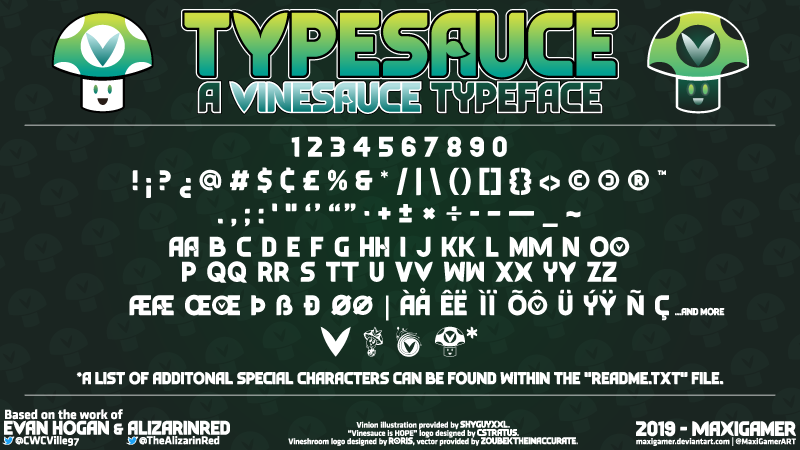
"Typesauce" is a typeface based on an original logo design by Evan Hogan|@CWCVille97, made for Vinesauce, a Twitch.TV streaming group. Please read the "readme.txt" file, enclosed within the provided .zip, for further information about this font, its license and additional credits. A list of uppercase variants + additional special characters can also found within the "readme.txt" file, as well as a list of supported Unicode blocks. A changelog is also available. 2019 - MaxiGamer @MaxiGamerART | maxigamer.deviantart.com |